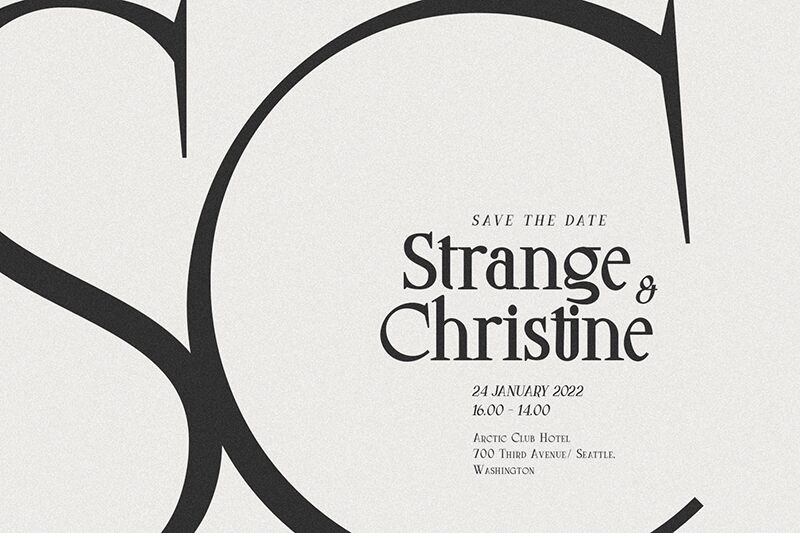
LittleMuffin FREE
Little Muffin font by FactoryType is a charming serif free font that combines both modern and vintage elements for contemporary use. With light weight and condensed width, it offers balanced proportions with traditional flair. Used mainly for display purposes, this beautiful typeface will bring refined, sophisticated elegance to all your projects.
Little Muffin is ideal for product packaging, magazine covers or headlines, fashion ads or lookbooks, and branding. Use this typeface in your label design along with names/logos or craft extravagant wedding invitations. It also works well on restaurant menus and other projects that require an exquisite look.